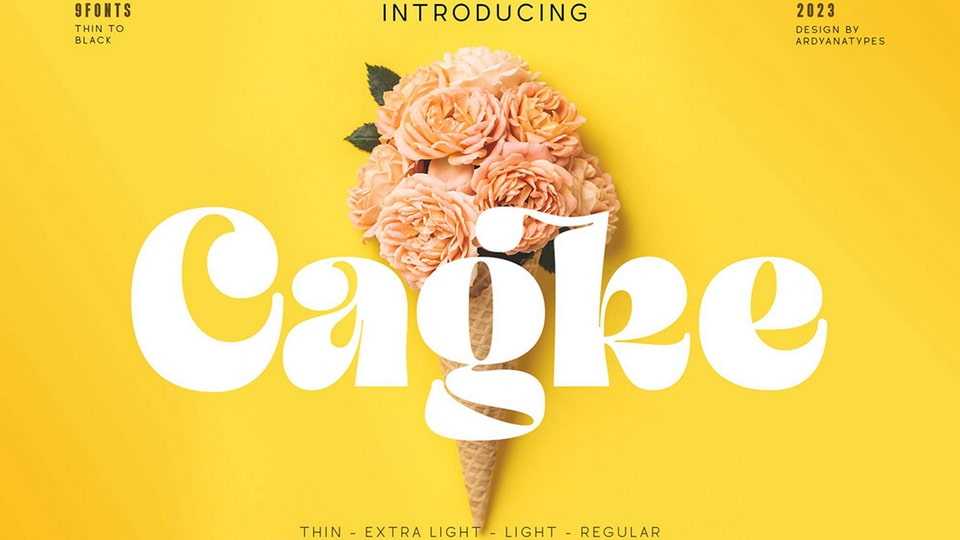
Download Cagke font, a stylish display typeface that offers a captivating classic and retro style. Cagke is very suitable for designs with a vintage, modern or elegant aesthetic.
Designer: Ardyana Types